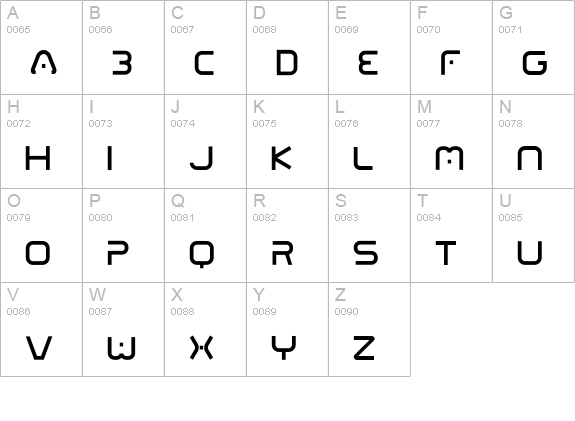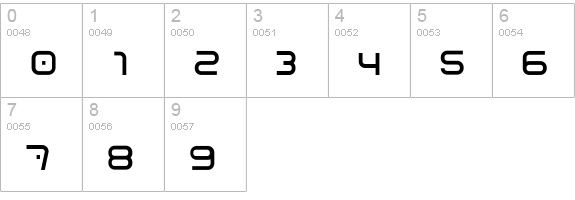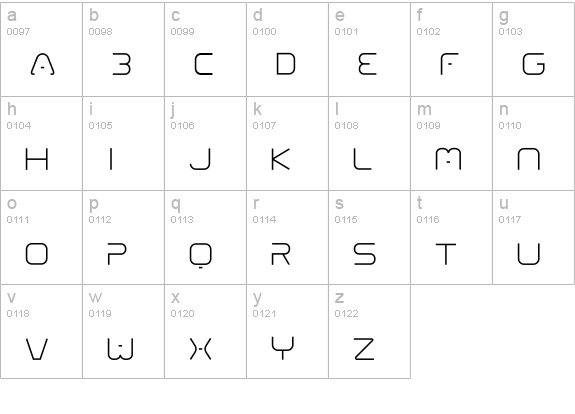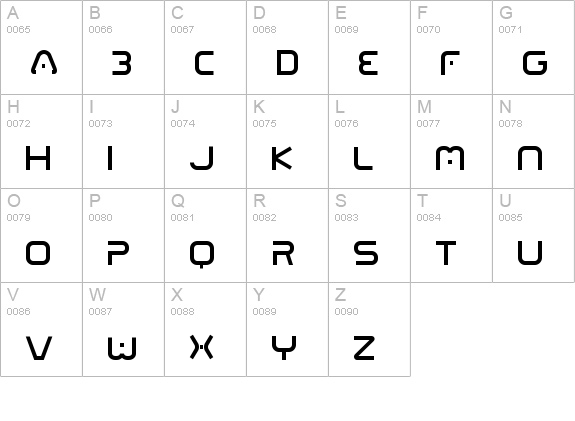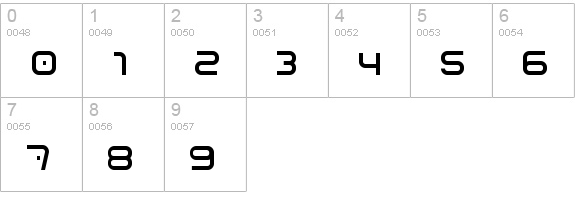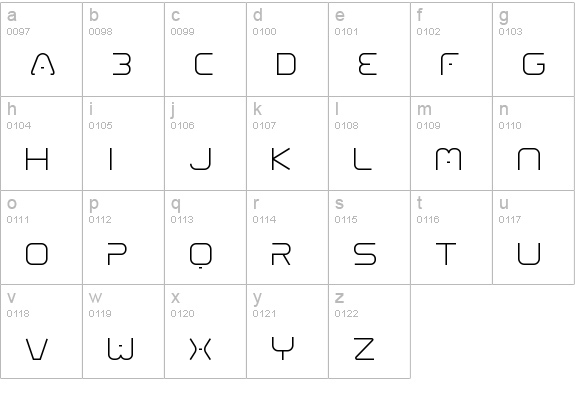
Introducing 01 Digitall font, a sleek and modern typeface perfect for digital projects and branding. This versatile font features clean lines and sharp edges, making it ideal for creating a contemporary look. Whether you're designing a website, logo, or social media graphics, 01 Digitall font will add a professional touch to your work. Best of all, 01 Digitall font is completely free to download at FontsMarket.com. Simply visit the website to access this stylish font and elevate your design projects with ease. Don't miss out on this fantastic opportunity to enhance your creative endeavors with the modern and sophisticated 01 Digitall font. Download it now and start creating stunning designs today!